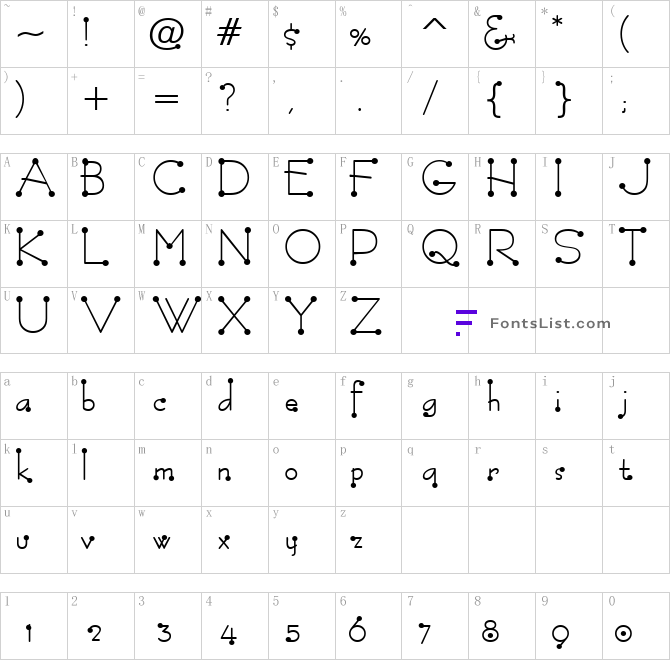
- Font Name:Accent Thin Dot
Accent-Thin-Dot.ttf is a very beautiful artistic font, Accent-Thin-Dot.ttf is widely used in the design and printing of various books and pictures,Accent-Thin-Dot.ttf has a strong visual impact,Accent-Thin-Dot.ttf is a commonly used font in newspapers, magazines and books, and is used in posters, e-commerce Poster design, store design, logo design, font design and other fields.Accent-Thin-Dot.